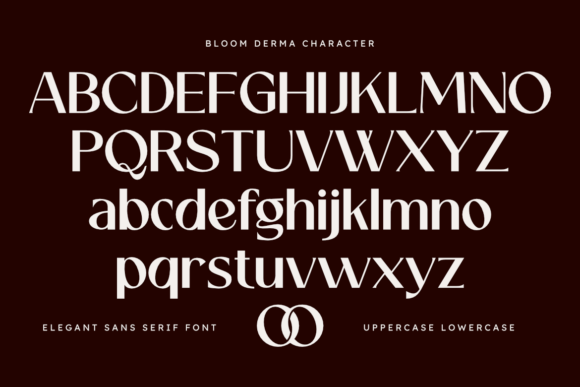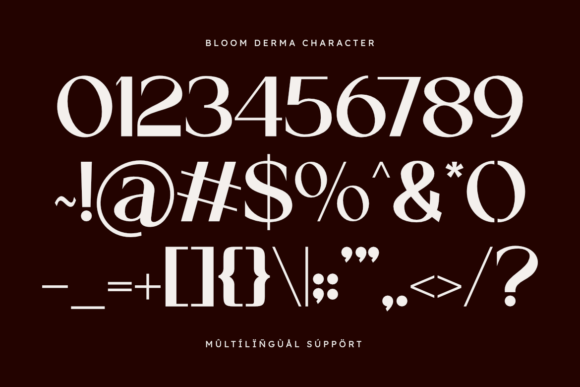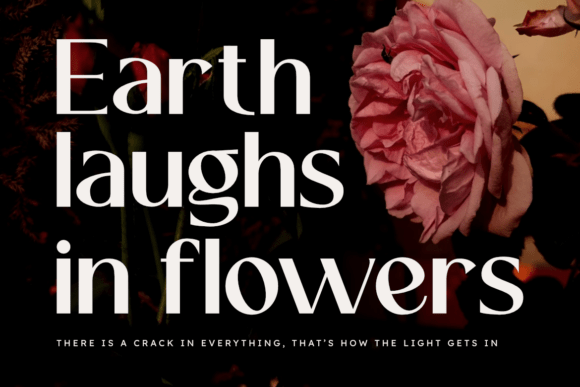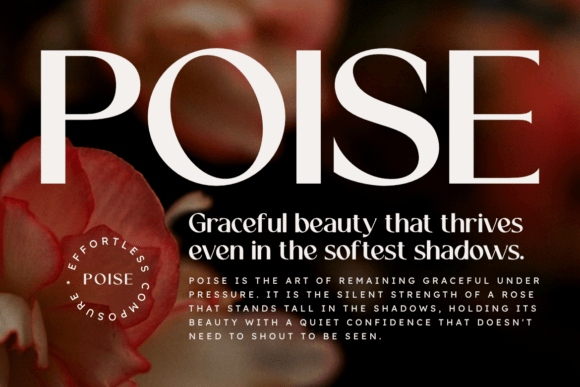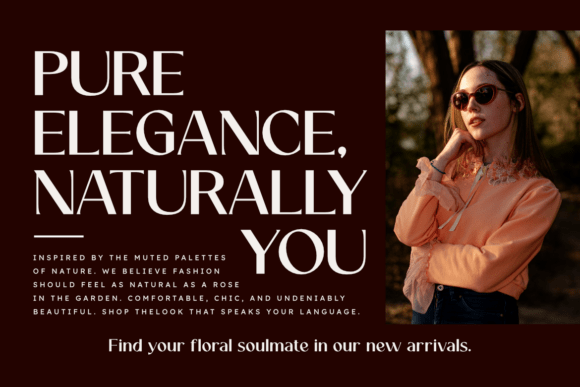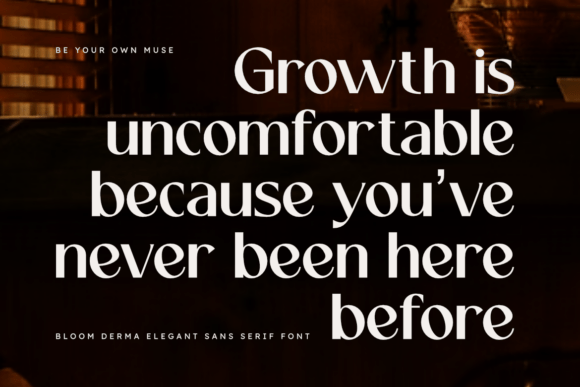
The Perfect Bloom for Your Design
Have you ever been stuck on a design project, struggling to find the right font to convey your message? You pour over font families, trying to find the perfect combination of style and substance. But sometimes, all it takes is one font to elevate your design from good to great. For me, that font is Bloom Derma.
This elegant sans serif font is more than just a pretty face – it’s a powerful tool for designers looking to make an impact. With its refined structure and sophisticated strokes, Bloom Derma Font is perfect for strong headlines, modern posters, and high-impact advertising. Its clean and confident design gives your visuals a striking and professional look, making it a valuable addition to any designer’s toolkit.
Bloom Derma Font Key Features
- Font Family: Bloom Derma is a modern sans-serif font designed for various digital applications.
- Resolution: Optimized for high-resolution displays, with clear and crisp typography at 300 DPI and above.
- Font Size: Available in various font sizes, ranging from 8 to 72 points, making it suitable for various digital applications.
- Unique Characteristics: Features a unique blend of modern and minimalist design elements, with clean lines, geometric shapes, and subtle nuances that give it a distinctive look.
Bloom Derma Font Review
Overall, I think the Bloom Derma font is a beautiful addition to any design project. ✨ It’s elegant, sophisticated, and has a unique touch that sets it apart from other fonts. I’ve used it for a few projects, and it always seems to bring a sense of refinement and professionalism.
- ✨ Elegant and sophisticated design, perfect for luxury or high-end brands.
- ✨ Great for use in titles, headings, or any text that needs to stand out.
- ✨ Works well in both digital and print formats.
- ⚠️ May not be suitable for casual or playful projects, as it can come across as too formal.
- ⚠️ Some characters may not display correctly in certain fonts or font sizes.
- ⚠️ Limited character set, which may be a concern for projects that require a wide range of characters.
Overall, I would give the Bloom Derma font 4 out of 5 stars. While it has some limitations, it’s a beautiful and versatile font that can add a touch of sophistication to any design project. With some careful planning and consideration, I think it can be a great choice for designers looking to elevate their work.
Getting the Most Out of Bloom Derma Font
Here are some tips for getting the most out of the Bloom Derma Font:
- Use it for headings and titles to add a touch of elegance.
- Combine it with other fonts for a unique and creative look.
The Bloom Derma Font is perfect for:
- Brand identity and marketing materials.
- Editorial and magazine design.
Alternatives to Bloom Derma Font
Lato Font is a modern sans-serif font that is highly legible and versatile. It is suitable for both body text and headings. It can be used for a wide range of applications, including digital products, advertising, and editorial content. Lato Font is more geometric and clean compared to Bloom Derma Font, which is more organic and elegant.
Merriweather Font is a classic serif font that exudes sophistication and elegance. It is ideal for use in print materials, such as books, magazines, and newspapers. Merriweather Font is more traditional and formal compared to Bloom Derma Font, which is more modern and playful.
Open Sans Font is a clean and modern sans-serif font that is highly legible and versatile. It is suitable for use in digital products, including websites, apps, and social media. Open Sans Font is more minimalist and neutral compared to Bloom Derma Font, which is more decorative and expressive.
Playfair Display Font is an elegant and luxurious serif font that is perfect for use in high-end applications, such as luxury brands, fashion, and fine art. Playfair Display Font is more ornate and decorative compared to Bloom Derma Font, which is more understated and subtle.